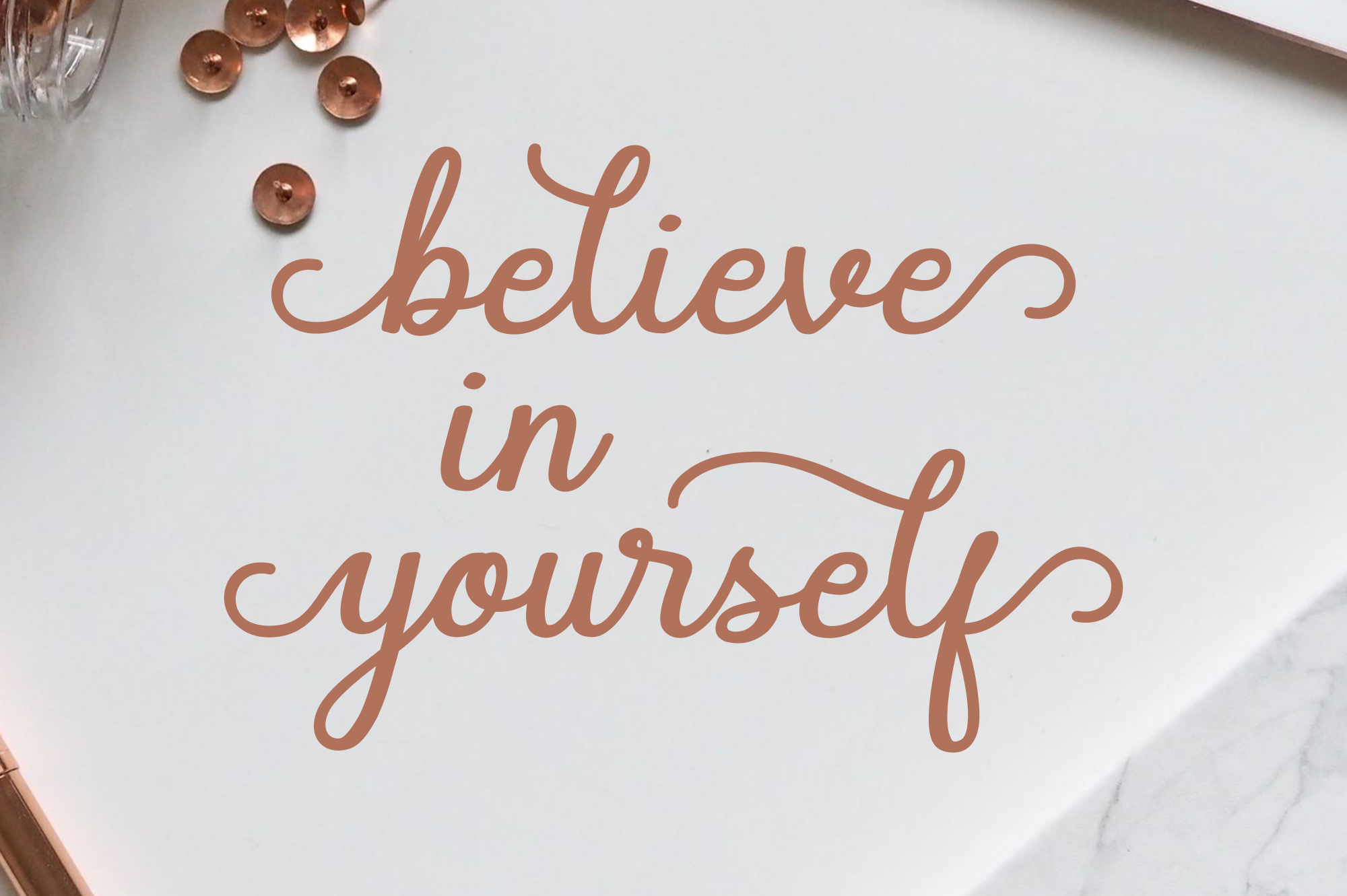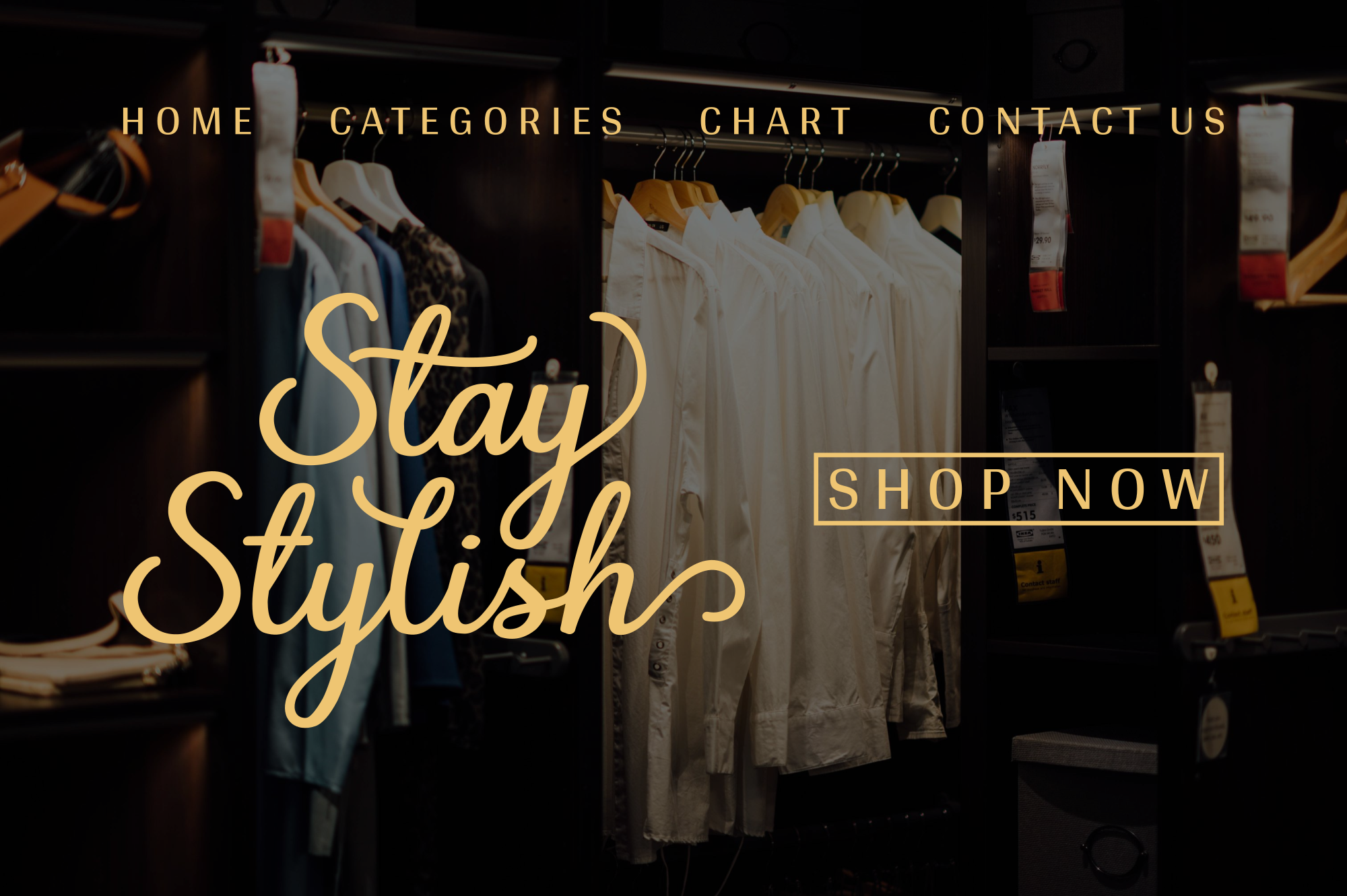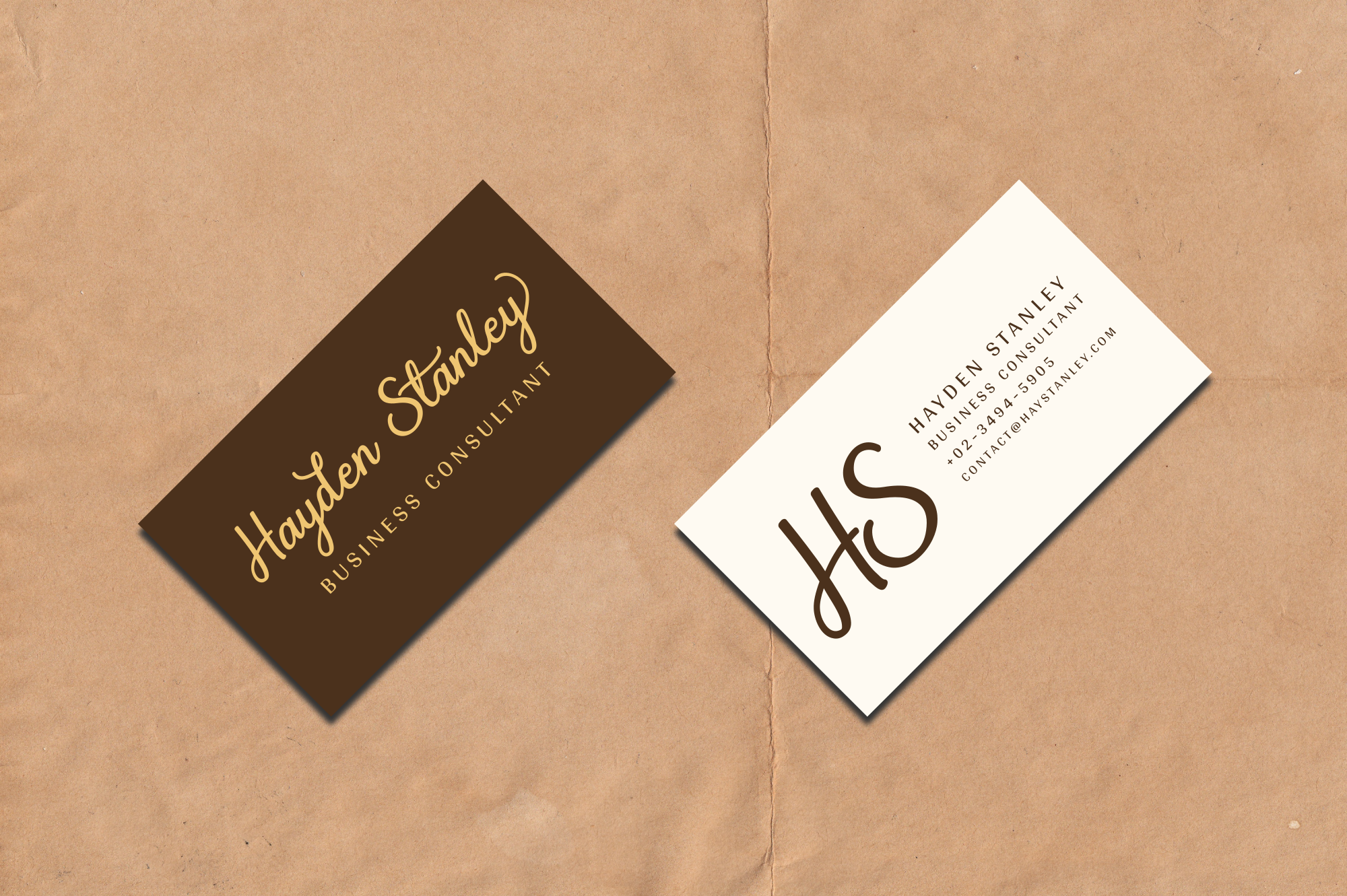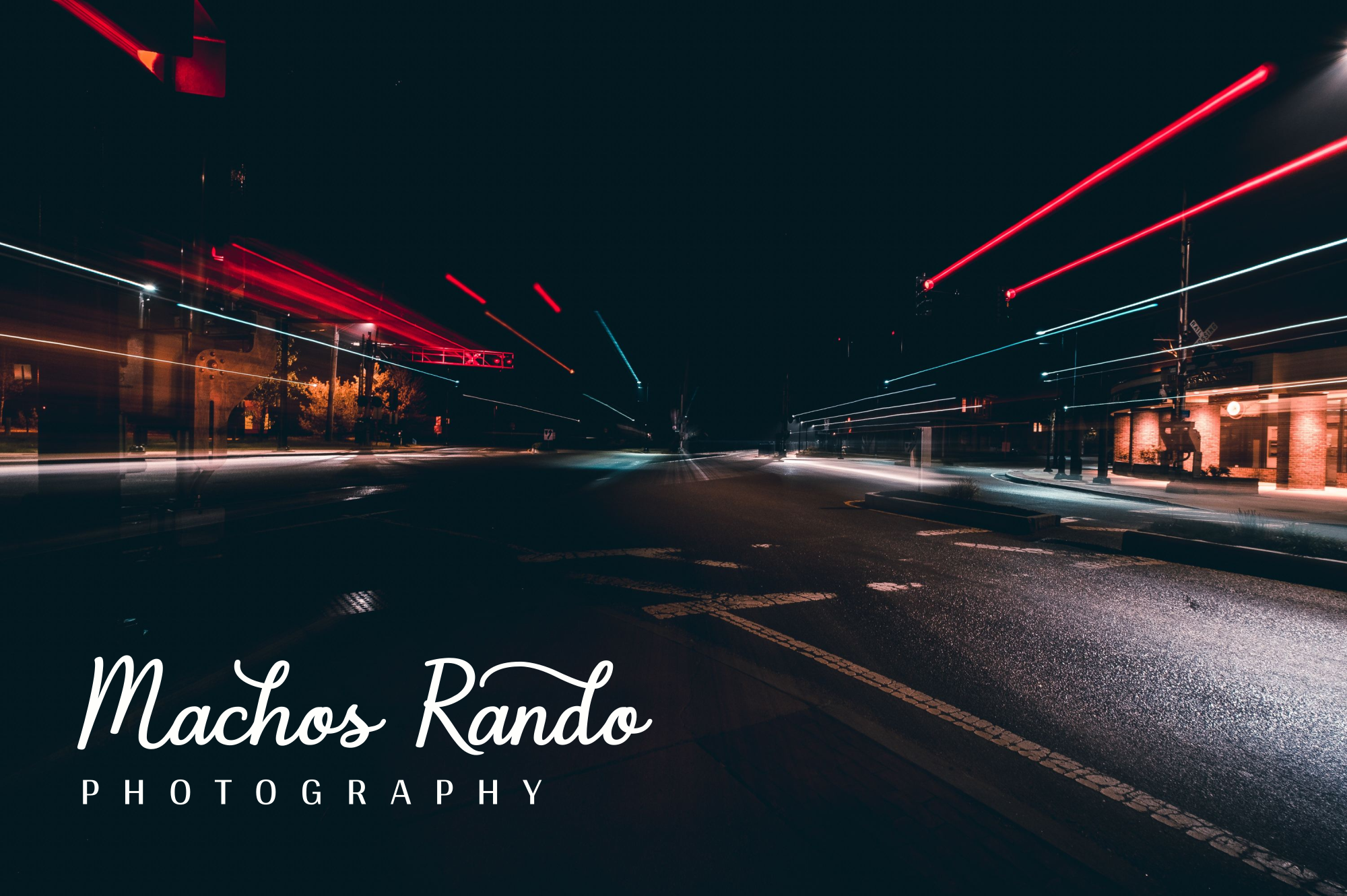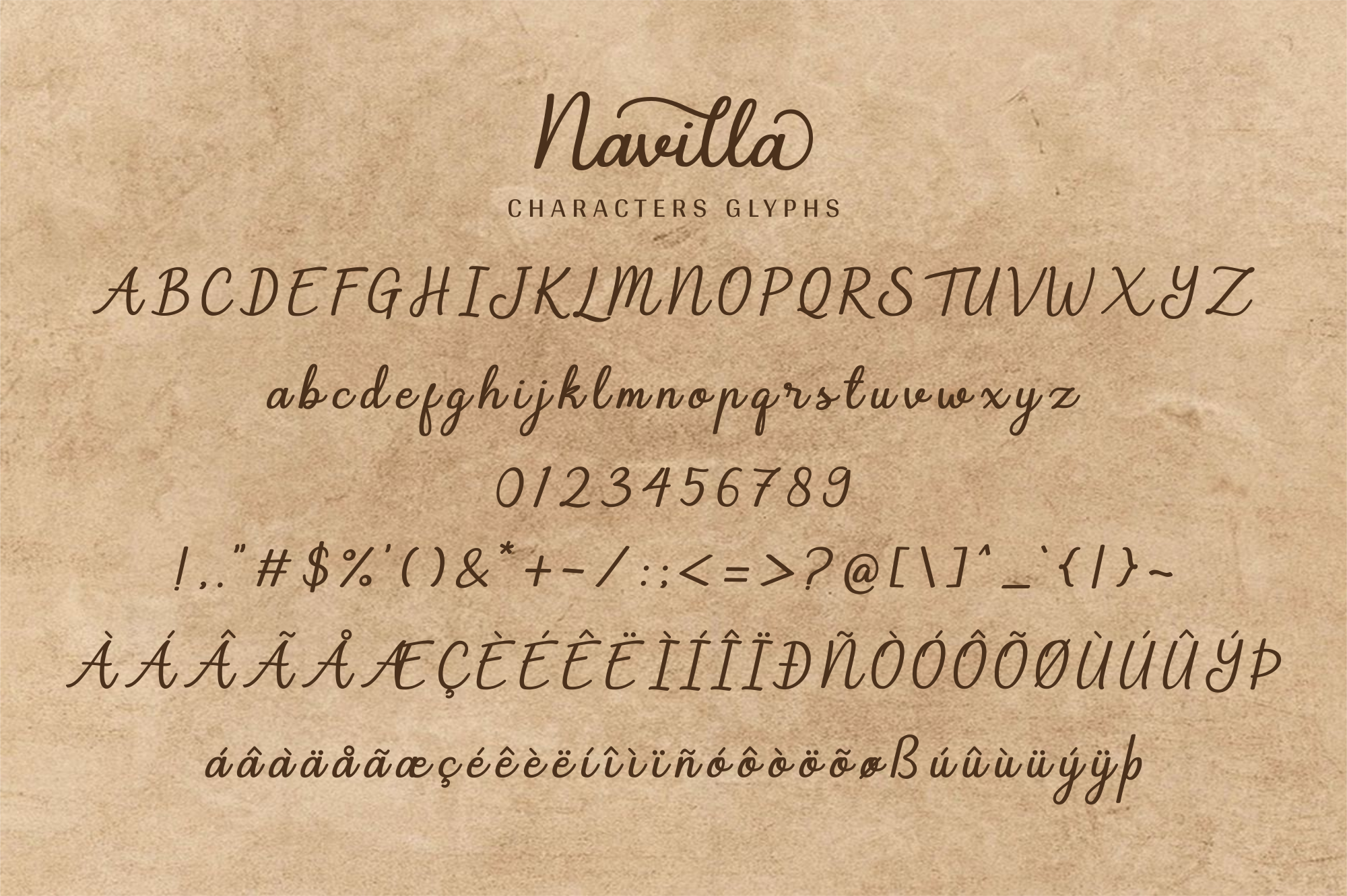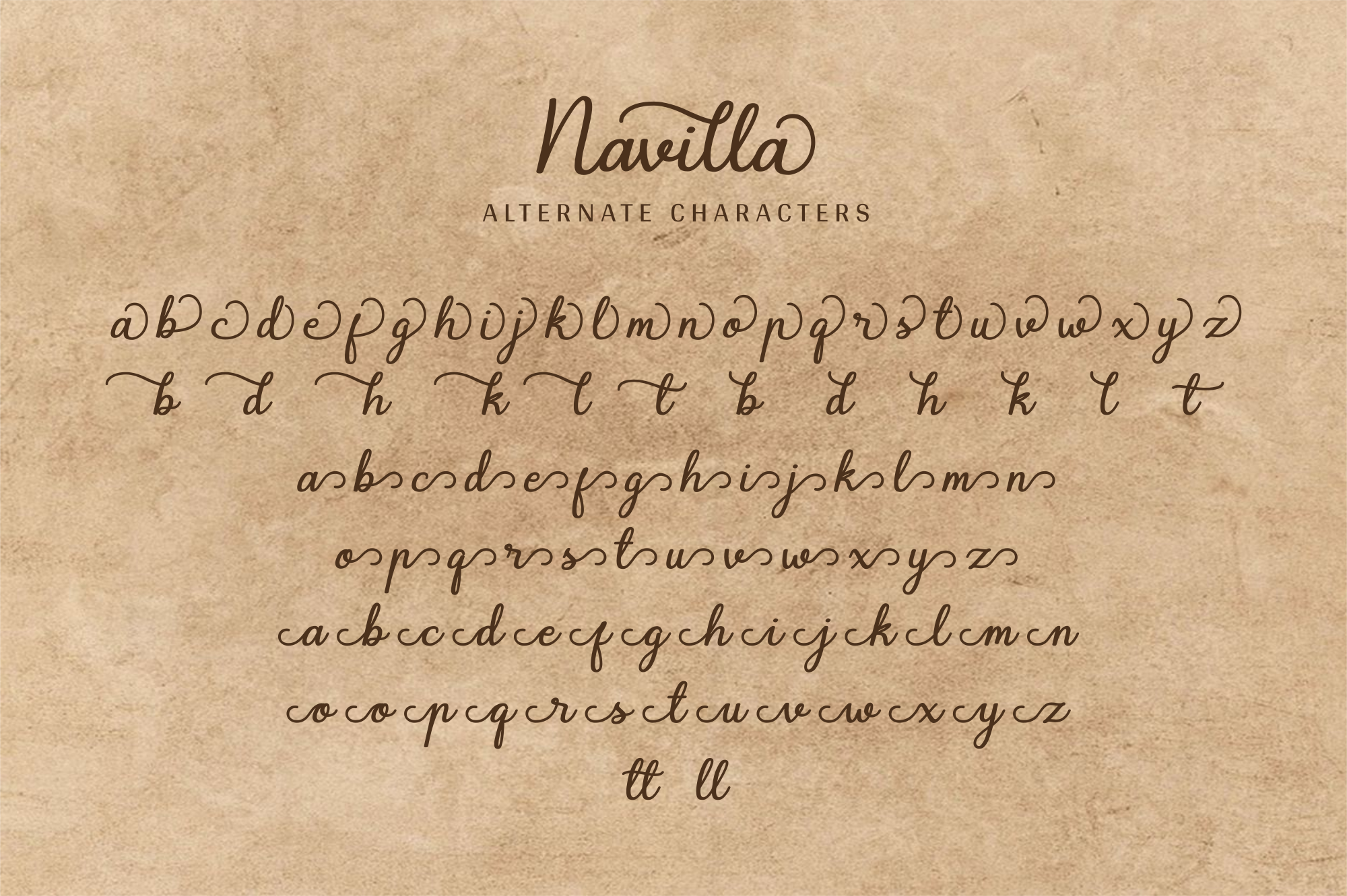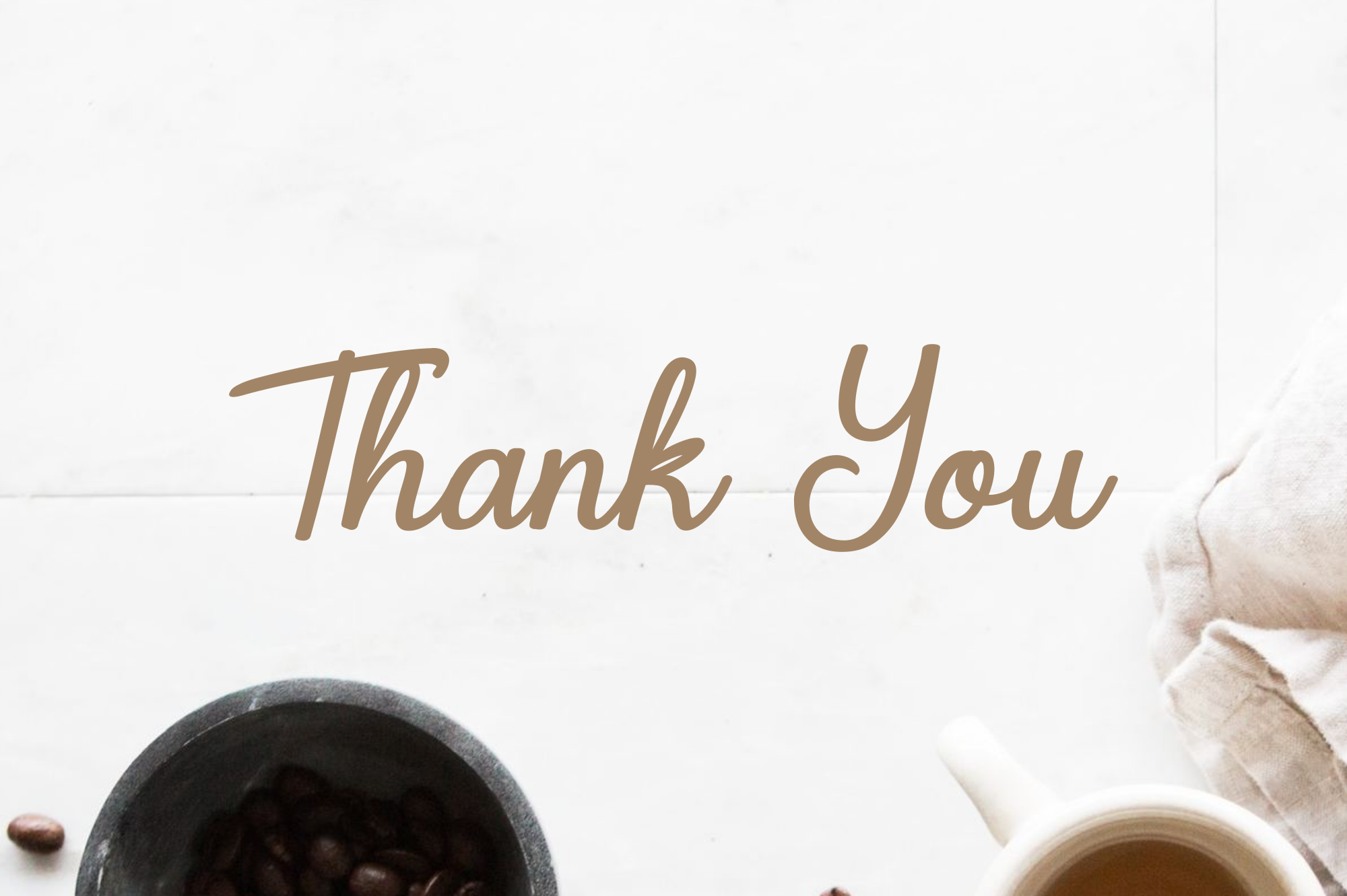
Navilla - Script Font
Navilla is a beautiful classic script font with a unique charm. It adds an authentic handwritten touch to creative projects that need elegance and personality.
Navilla is a beautiful classic script font with a unique charm. It adds an authentic handwritten touch to creative projects that need elegance and personality. It works well for logos, branding, invitations, packaging, labels, quotes, stationery, and more.
Logos, branding, invitations, packaging, labels, quotes, stationery,